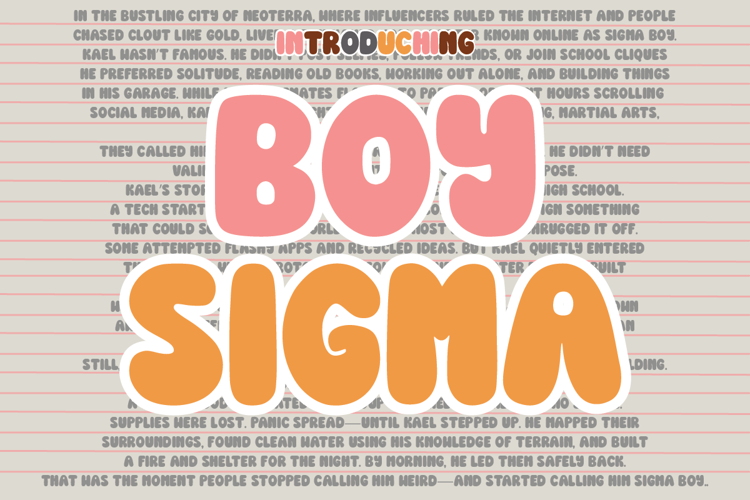
Sigma Boy Font
Hannie Display Font - This font would be perfect for photography, watermarks, social media posts, advertisements, logos & branding, invitations, product design, labels, stationery, product packaging, special events, and other projects. This font is PUA encoded which means you can access all glyphs with ease!